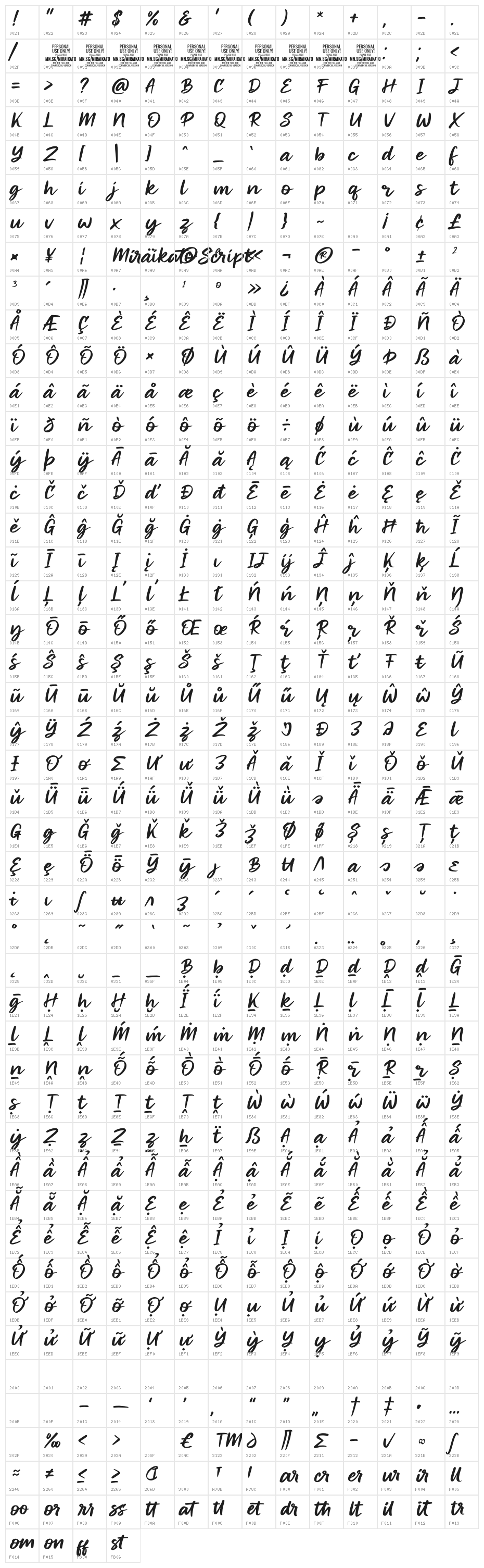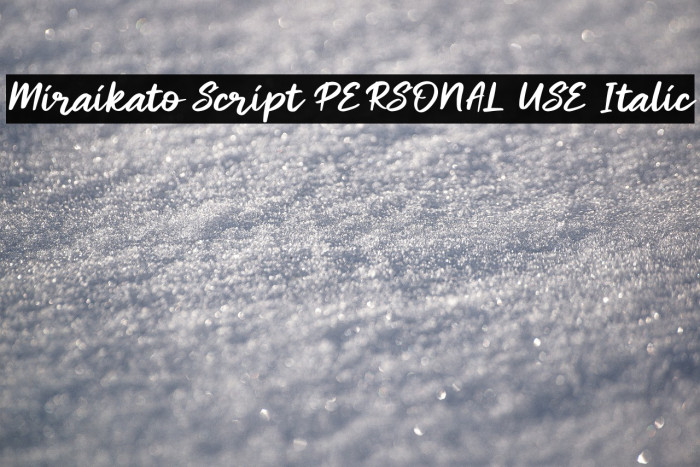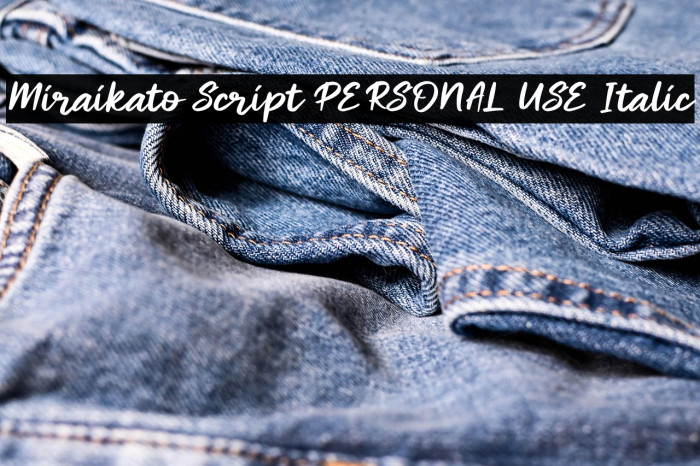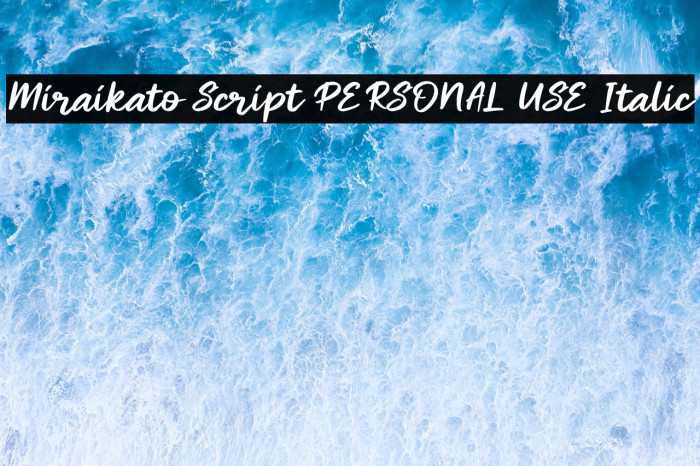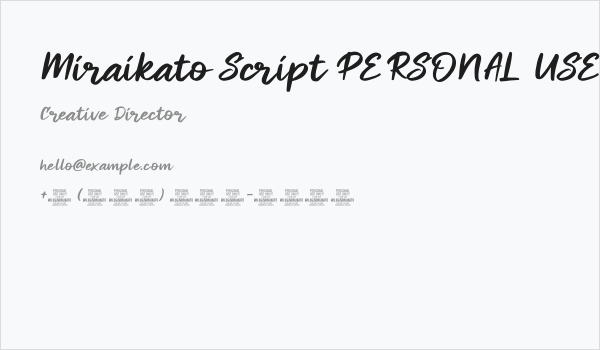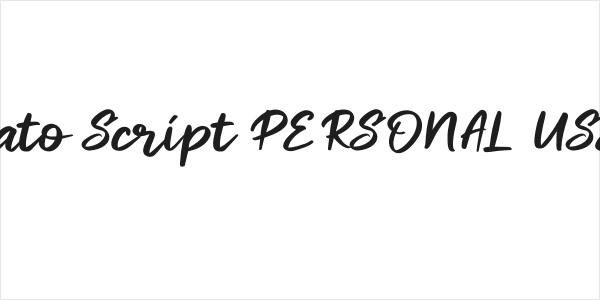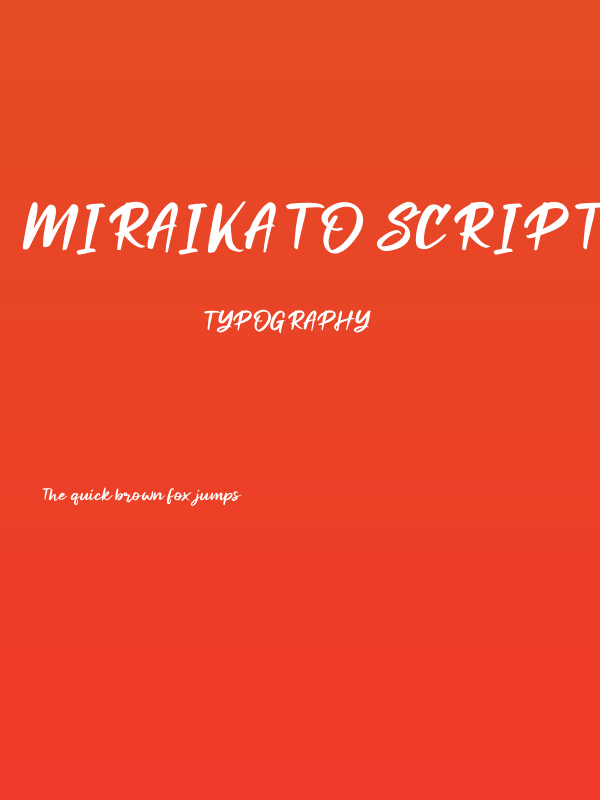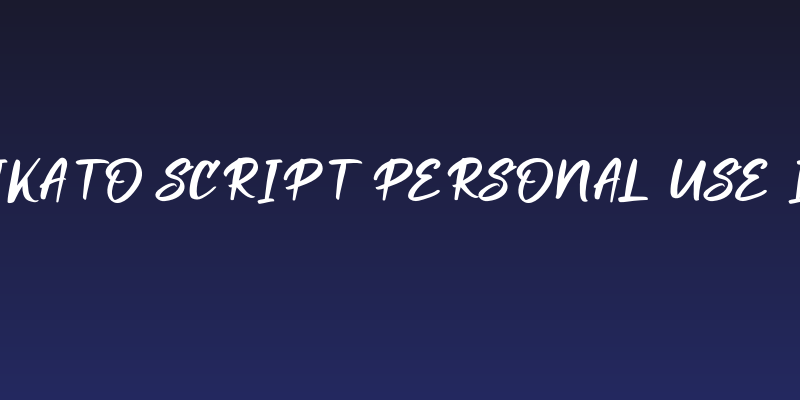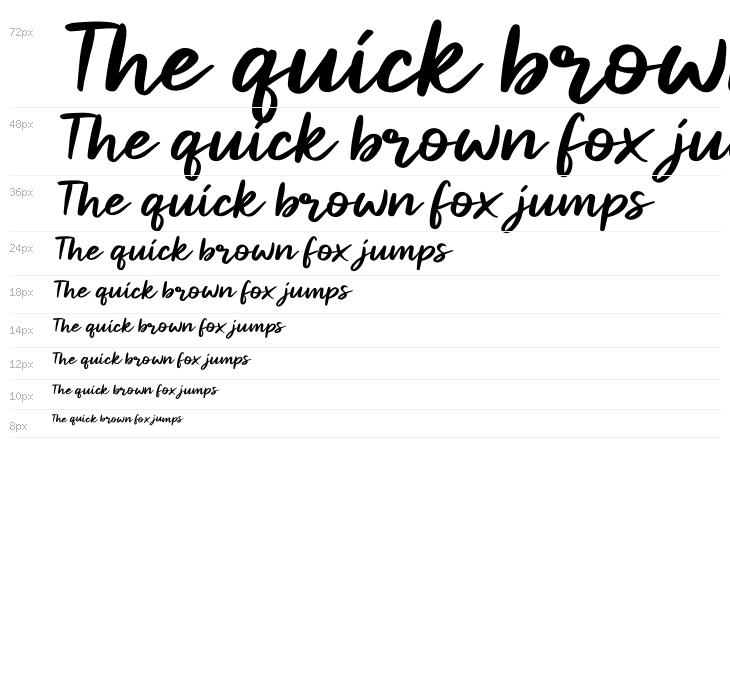
Miraikato Script PERSONAL USE Italic Font
Miraikato Script PERSONAL USE Italic Description
This script font exudes a lively and dynamic character with its flowing, cursive style. The letters are connected, creating a sense of continuity and movement. The strokes are smooth and slightly varied in thickness, adding a touch of elegance and sophistication. The uppercase letters are bold and prominent, while the lowercase letters maintain a consistent flow. The font includes a full set of numerals and a variety of special characters, making it versatile for various design needs. Its playful yet refined appearance makes it suitable for creative projects that require a personal touch.